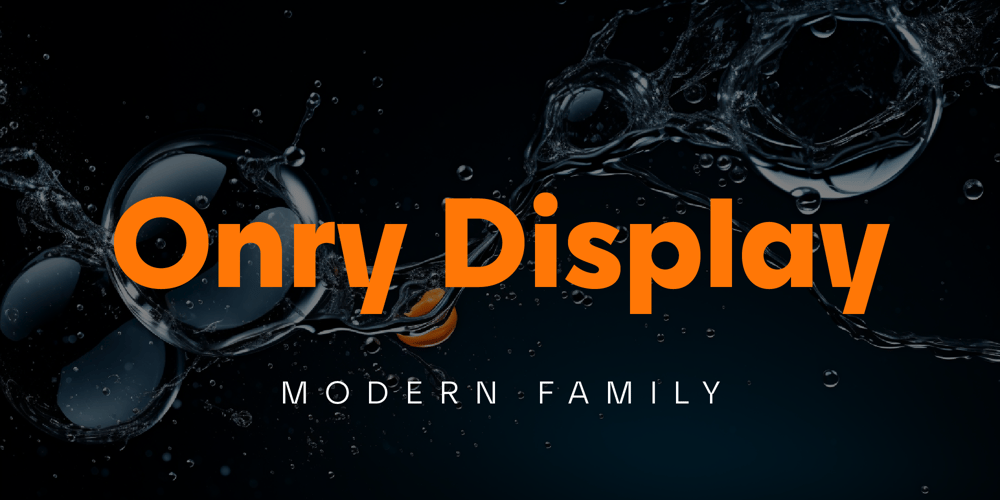
Onry Display Font Family was designed by Nikolay Savchuk and published by NicolassFonts. Onry Display contains 20 styles and family package options. Onry Display is a modern family based on Willgray font family. It comes in 20 weights, 10 uprights, and matching italics. The ExtraBold weight is free of charge.This font family can be used as a headline or as a body copy typeface. The font features excellent legibility for print, as it does for reproduction on TV screens.